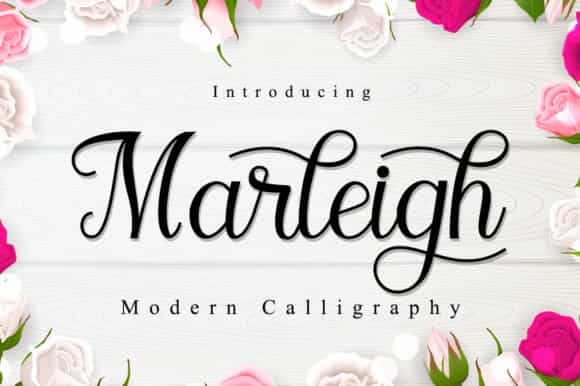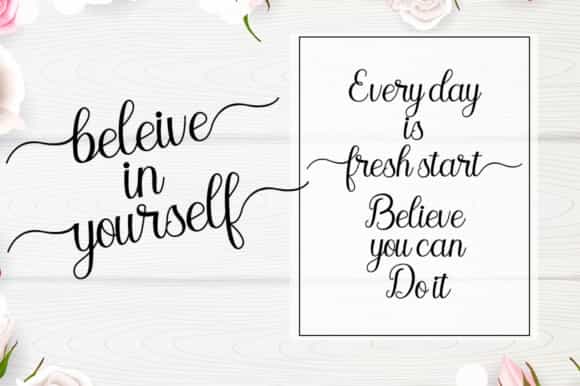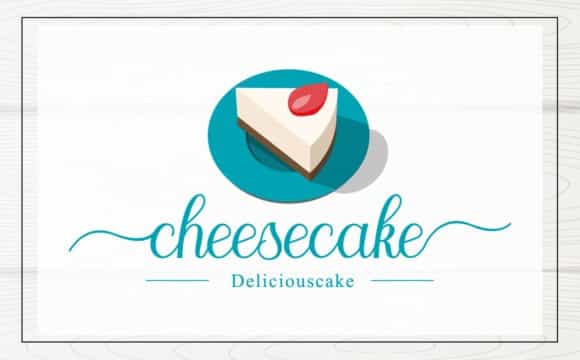
Marleigh – a new and fresh handmade calligraphy font. The clean letterforms with an offbeat flavor in the letter stances of Marleigh Script make it a unique font that can be used for many different purposes from casual to lightly sophisticated. The stylistic alternates feature is another way of adding swash capitals to the mix thus providing even more diversity.